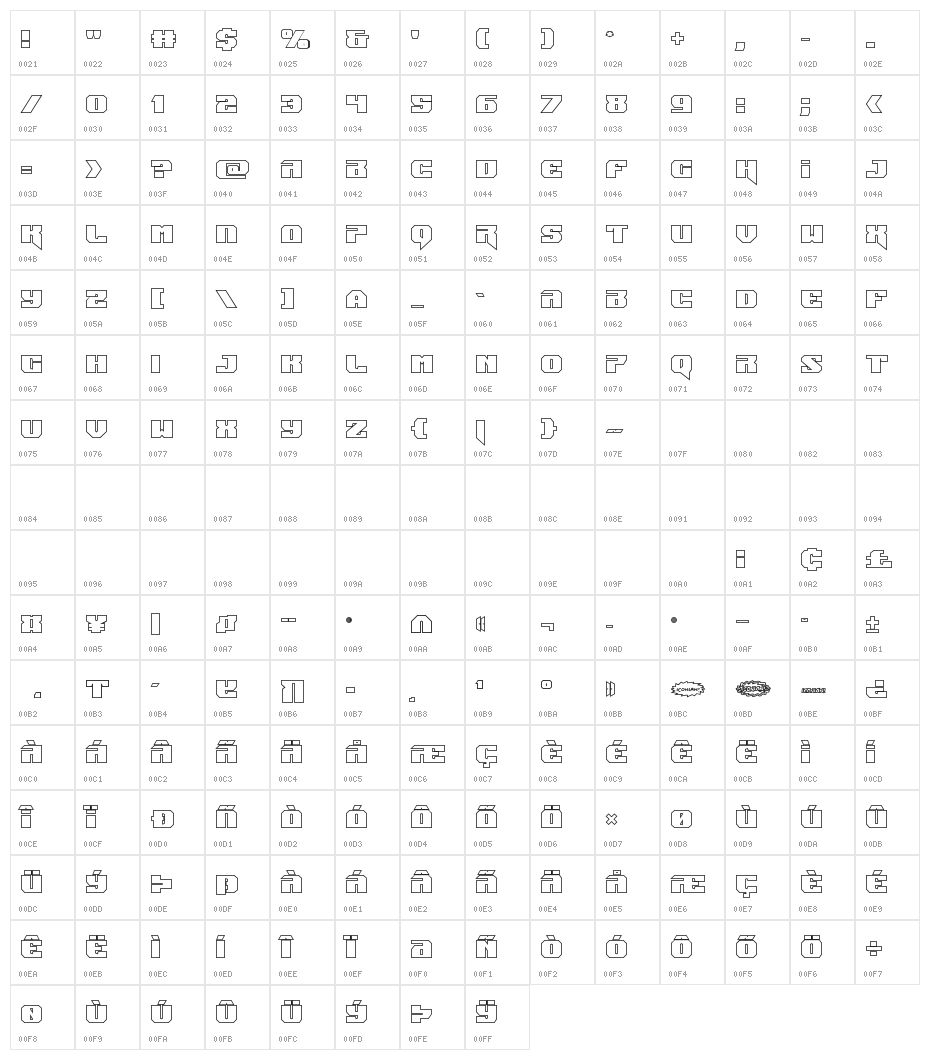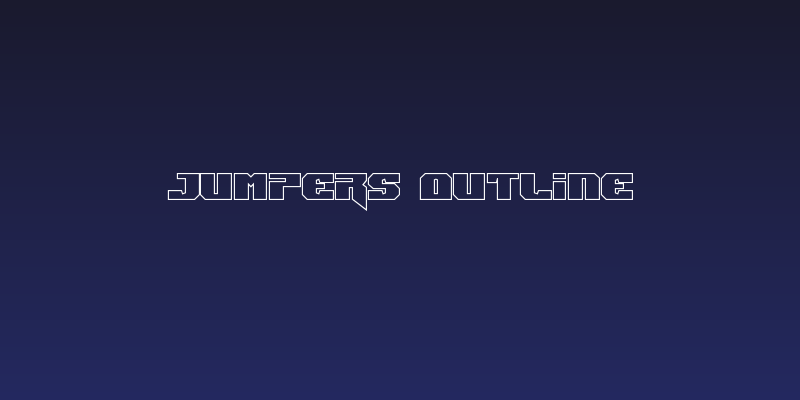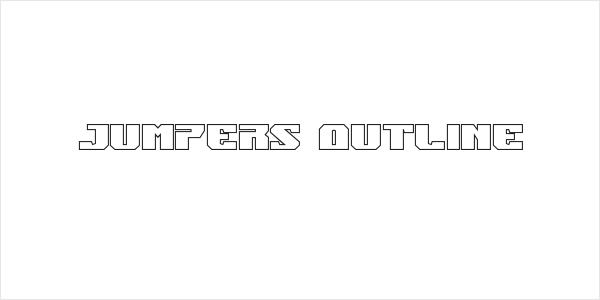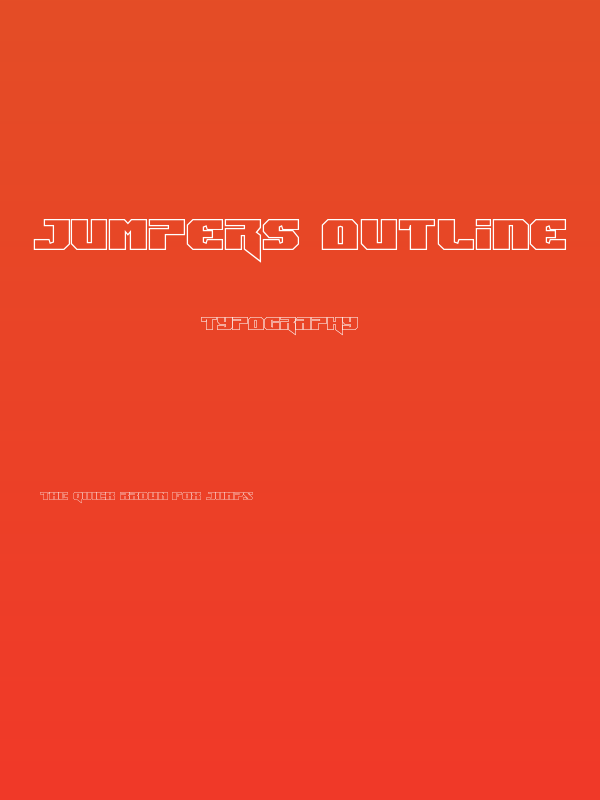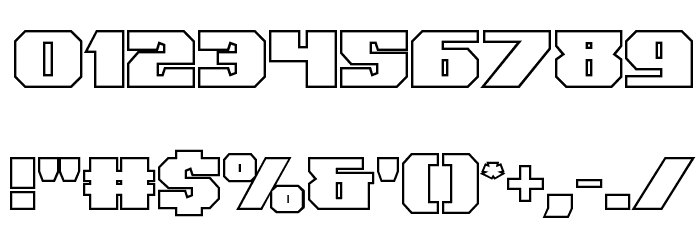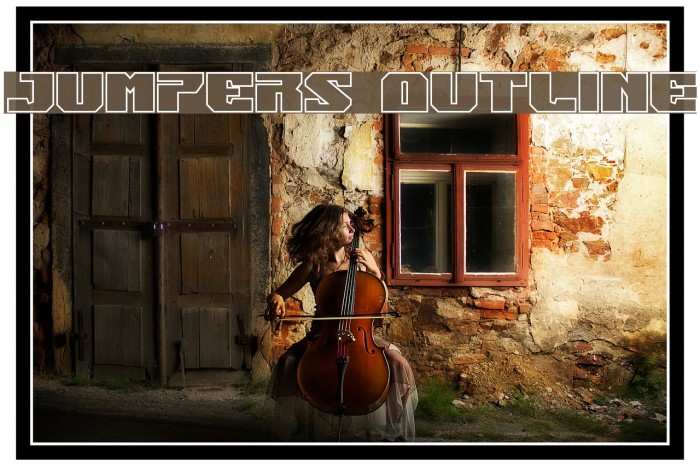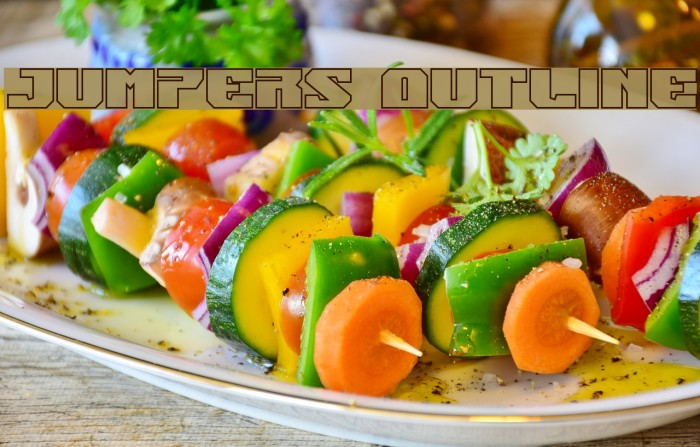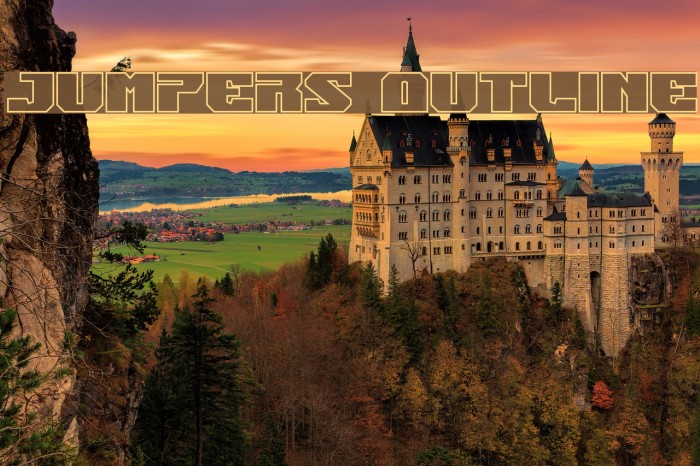
Jumpers Outline Font
Jumpers Outline Description
This font features a bold, geometric outline style with sharp angles and a modern, edgy appearance. Each character is defined by thick, uniform strokes that create a strong visual impact. The design is consistent across uppercase and lowercase letters, as well as numbers and special characters, maintaining a cohesive look. The angular shapes and outlined form give it a futuristic and dynamic feel, making it stand out in any design. Its unique style is perfect for projects that require a bold statement or a modern aesthetic.
JUMPERS-OUTLINE UPPERCASE
JUMPERS-OUTLINE LOWERCASE
JUMPERS-OUTLINE OTHER CHARS
| Proposed Projects | Ideal for branding, posters, album covers, and any project needing a strong, modern statement. |